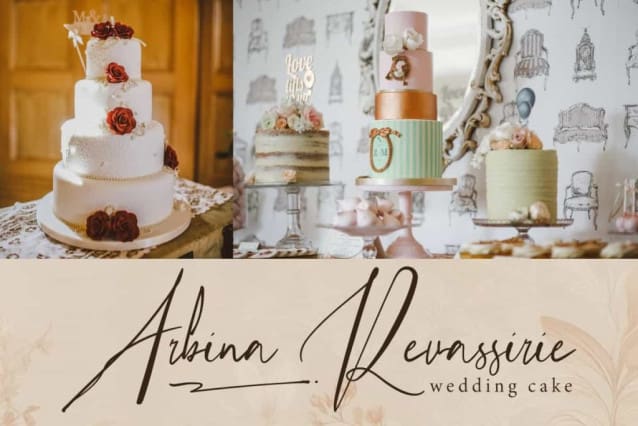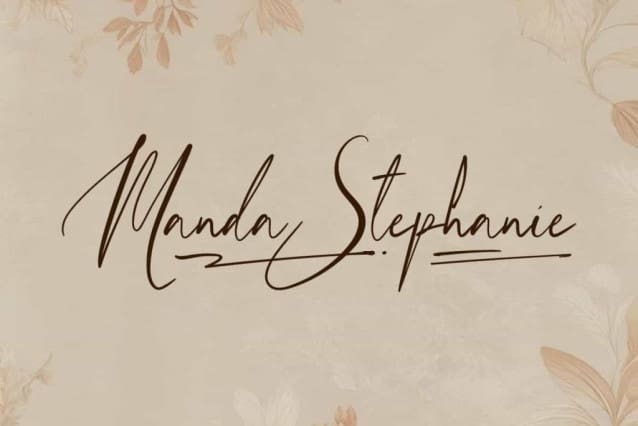
Manda Stephanie Font
Manda Stephanie Font is a beautiful romantic handwritten script font. This font has a stunning and elegant characters that still be read clearly. It will be good for many designs, such as brochure, cover, custom design, gift box, invitation, label, poster, product packaging, quote, screen printing, stationery, website, and more!
Manda Stephanie Font includes full set of Uppercase and Lowercase Basic Characters, Numerals, Punctuation, Ligature, and Swoosh characters. This beautiful font will be suitable for many industries, such as advertisement, café, event or wedding organizer, fashion, furniture, handicraft, perfume, resort, restaurant, spa and salon, etc.